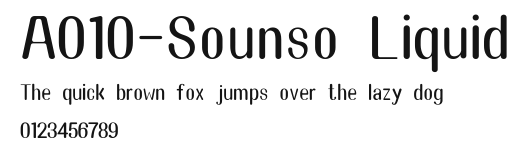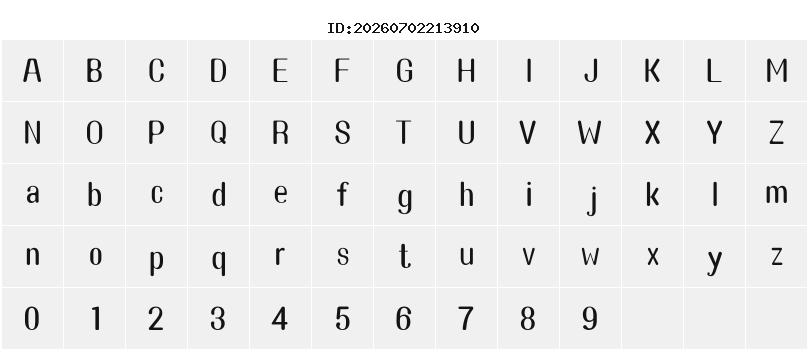
A010-Sounso Liquid Preview
• Font Name: A010-Sounso Liquid
• Font ID: A010-Sounso Liquid:Version 4.00
• Full Font Name: A010-Sounso liquid
• Version: Version 4.00 March 3, 2021
• PostScript Name: A010-SounsoLiquid
• Character Count: 804
• Manufacturer: 上首造字
About A010-Sounso Liquid.ttf
A010-Sounso Liquid.ttf is a modern, elegant sans-serif font designed for ultimate readability and visual harmony. Perfect for branding, headlines, web design, and print materials.